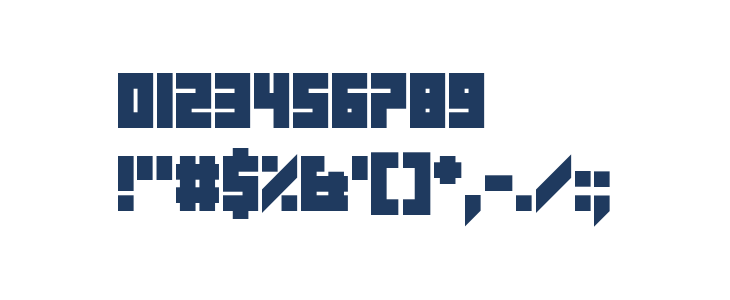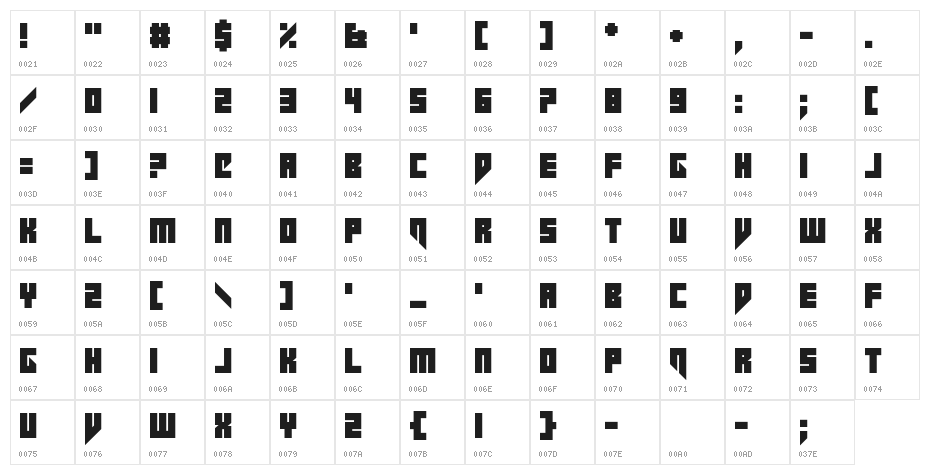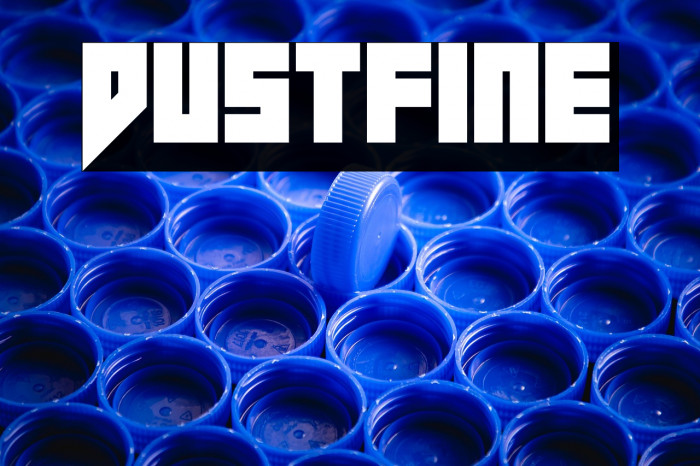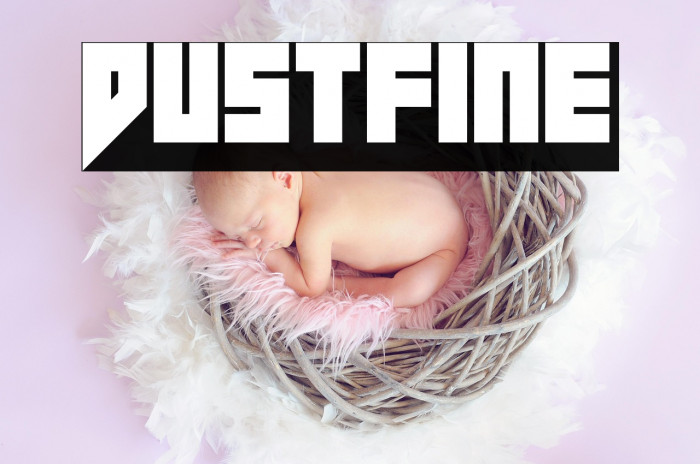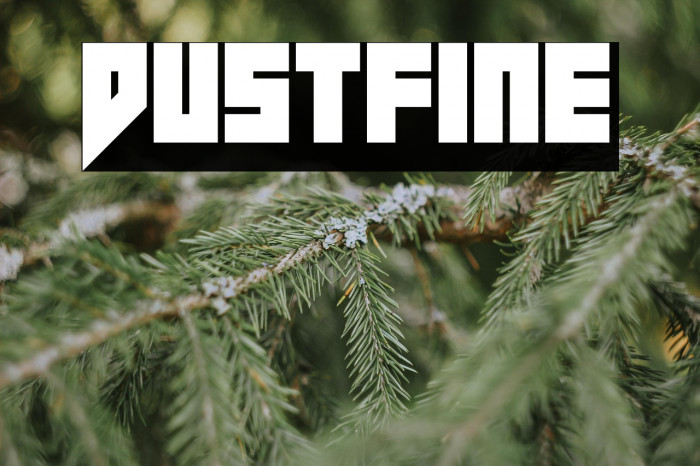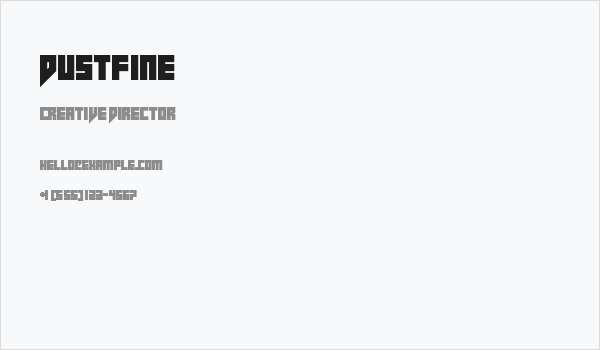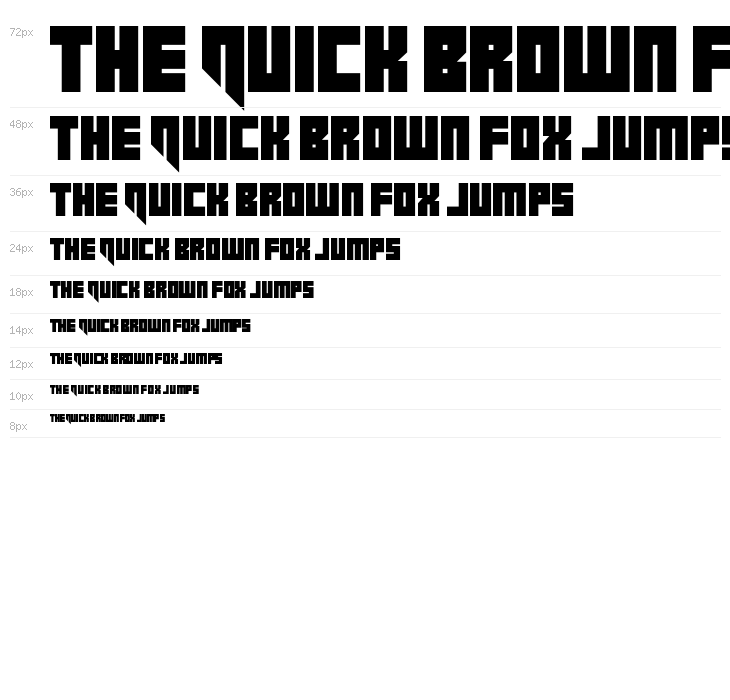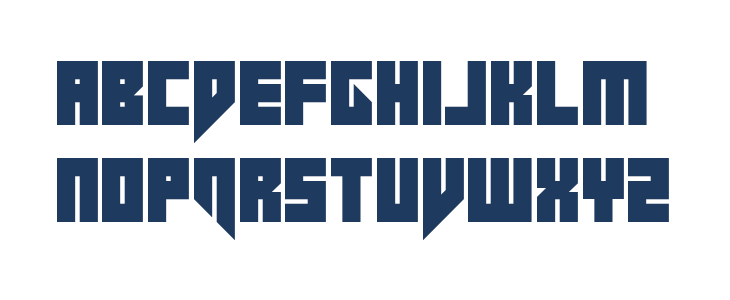
Dustfine Font
Dustfine Description
This font features a bold, geometric design with sharp angles and a blocky appearance. The characters are uniformly thick, creating a strong visual impact. The uppercase letters are particularly striking, with some characters incorporating unique diagonal cuts that add a dynamic feel. The numbers and special characters maintain the same boldness and angular style, ensuring consistency across all glyphs. This font's design is reminiscent of futuristic or industrial themes, making it suitable for projects that require a modern and edgy look.